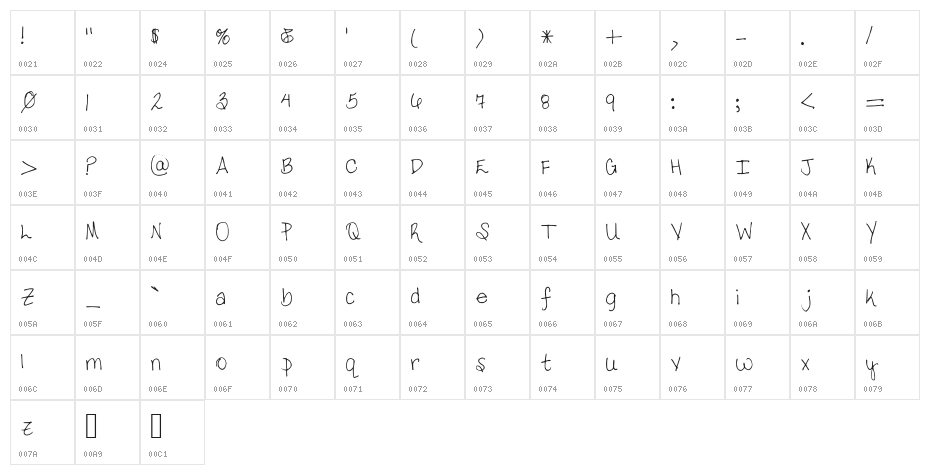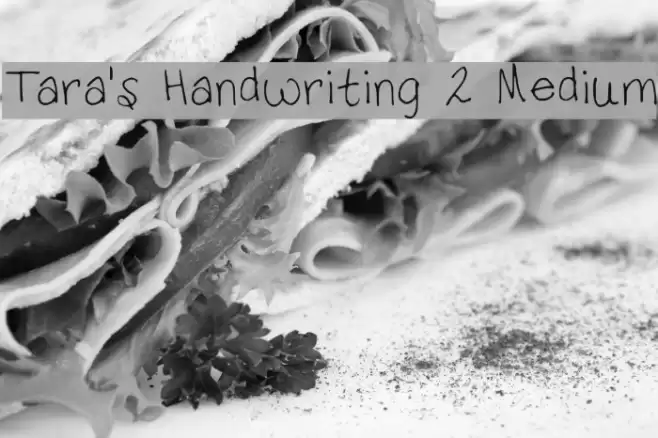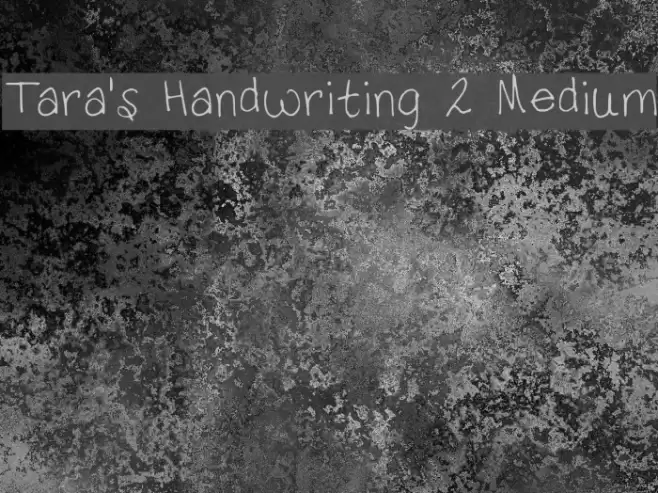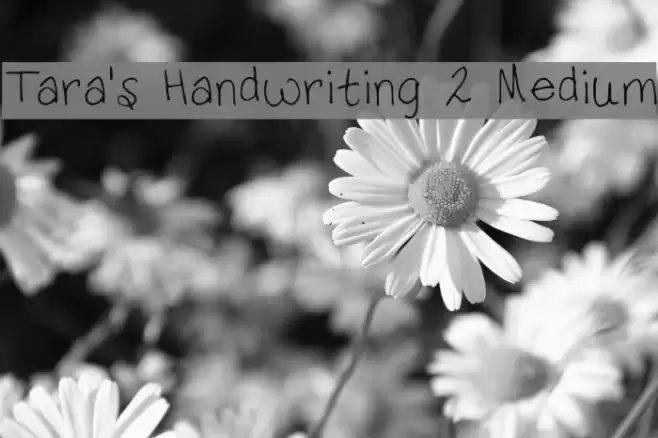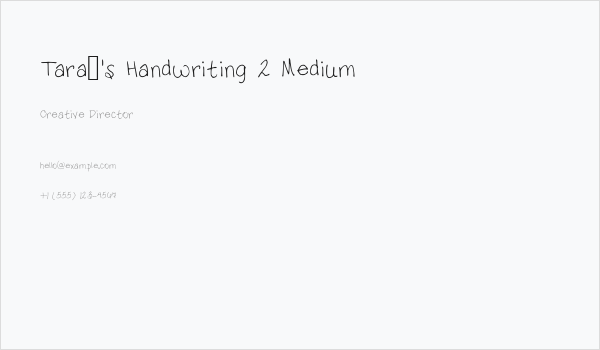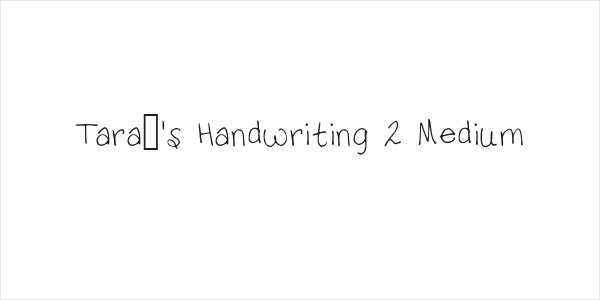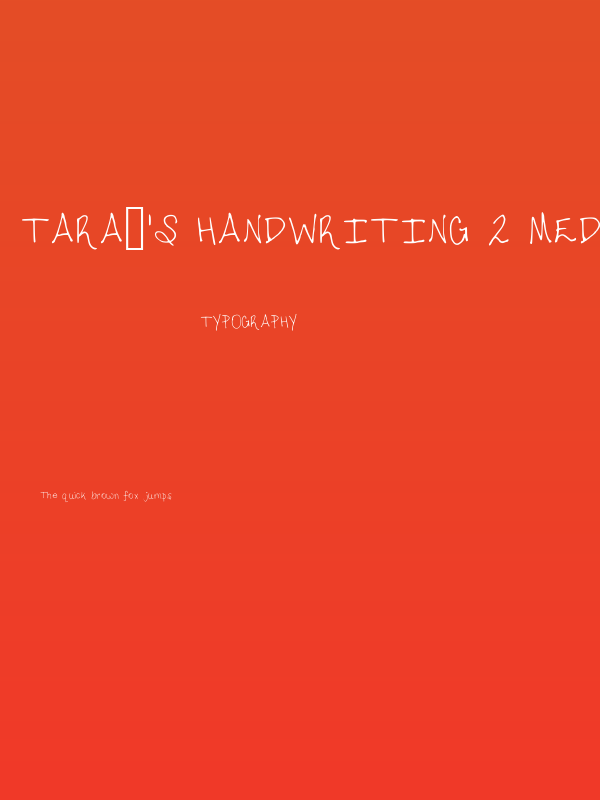
Tara's Handwriting 2 Medium Font
Tara's Handwriting 2 Medium Description
This font exudes a playful and casual handwritten style, characterized by its irregular strokes and slightly uneven baseline. The letters have a whimsical, personal touch, reminiscent of a quick, informal note. The uppercase letters are bold and slightly larger than the lowercase, which are more rounded and softer in appearance. The numbers and special characters maintain the same playful style, adding a cohesive look throughout. This font is perfect for projects that require a personal, friendly, and approachable feel.
| Use Case | Headlines, Informal text, Personal notes |
| Proposed Projects | Ideal for greeting cards, personal notes, children's books, and informal branding. |